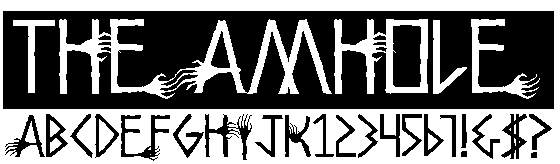
Amhole
This type face is the lettering for a horrific new feature called "The Amhole." This typestyle is inspired by the punk band Part1. Quite a creepy typeface when used correctly. The upper and lower case both have different lettershapes.